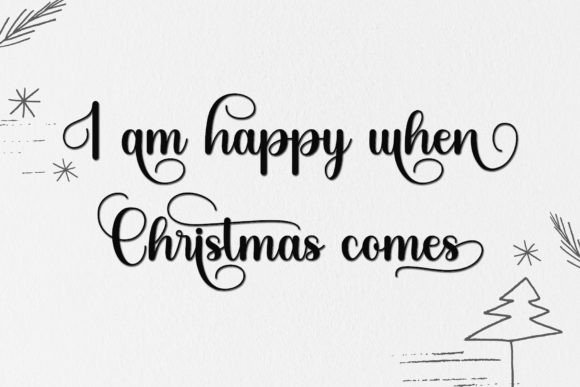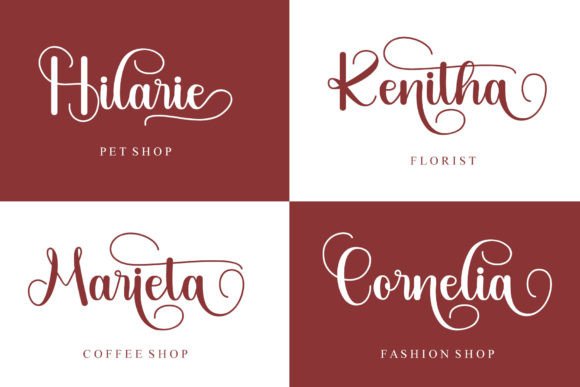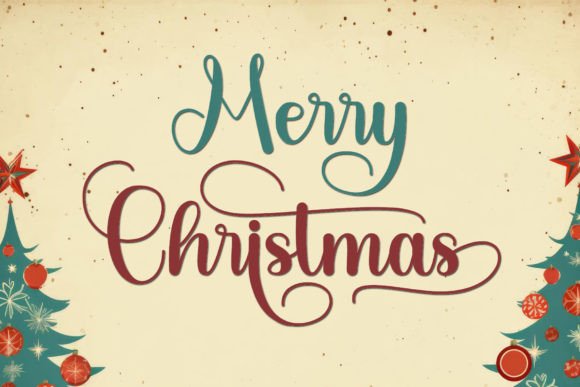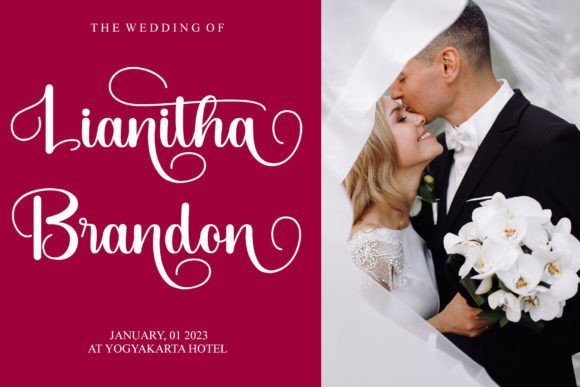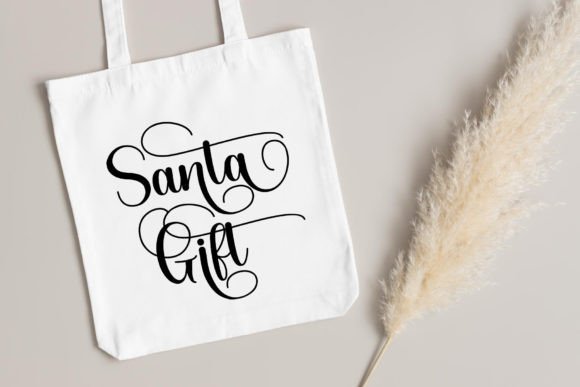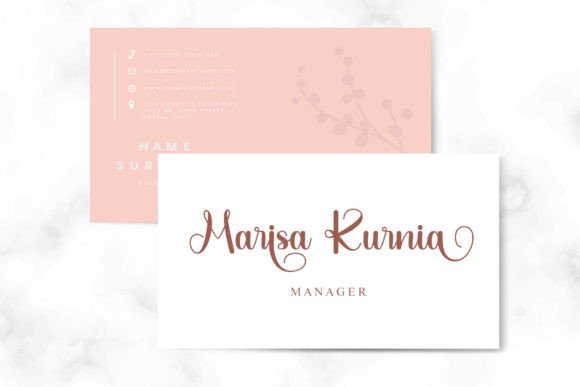
Christmas Beautiful Font: Elevate Your Holiday Designs with Elegance
Are you looking for a font that will add a touch of magic to your Christmas designs? Look no further than Christmas Beautiful Font, a modern calligraphy font that is sure to impress. With its flowing letters and lovely characters, this font is perfect for designers and crafters who want to create unique and eye-catching projects.
What is Christmas Beautiful Font?
Christmas Beautiful Font is a modern calligraphy font that is designed to give your designs a sweet and elegant look. Its flowing letters are perfect for creating beautiful and sophisticated designs that will stand out from the crowd. Whether you’re working on a logo, greeting card, or packaging design, this font is sure to add a touch of class and elegance.
Key Features of Christmas Beautiful Font
- Modern Calligraphy Style: Christmas Beautiful Font has a modern calligraphy style that is perfect for creating elegant and sophisticated designs.
- Flowing Letters: The font features flowing letters that will give your designs a unique and sweet look.
- Lovely Characters: The font includes many lovely characters that will add a touch of magic to your designs.
Uses for Christmas Beautiful Font
Christmas Beautiful Font is perfect for a wide range of design projects, including:
- Logos: Create a beautiful and elegant logo for your business or brand.
- Greeting Cards: Design stunning greeting cards for Christmas and other holidays.
- Package Design: Add a touch of elegance to your packaging designs with this beautiful font.
- Brand Identity: Use Christmas Beautiful Font to create a consistent brand identity across all of your marketing materials.
- Craft Design: Perfect for crafters who want to create beautiful and unique designs for their DIY projects.
- Book Titles: Use this font to create stunning book titles and covers.
- Wedding Invitations: Design beautiful and elegant wedding invitations with Christmas Beautiful Font.
- Packaging: Add a touch of magic to your packaging designs with this beautiful font.
- Any Christmas Project: Perfect for any Christmas project you have in mind, from holiday cards to festive decorations.
Why Choose Christmas Beautiful Font?
There are many reasons why you should choose Christmas Beautiful Font for your design projects. Here are just a few:
- Unique and Elegant: This font is sure to add a touch of elegance and sophistication to your designs.
- Versatile: Christmas Beautiful Font is perfect for a wide range of design projects, from logos to packaging designs.
If you’re looking for a font that will add a touch of magic to your Christmas designs, look no further than Christmas Beautiful Font. With its modern calligraphy style, flowing letters, and lovely characters, this font is perfect for designers and crafters who want to create unique and eye-catching projects. Whether you’re working on a logo, greeting card, or packaging design, Christmas Beautiful Font is sure to impress.